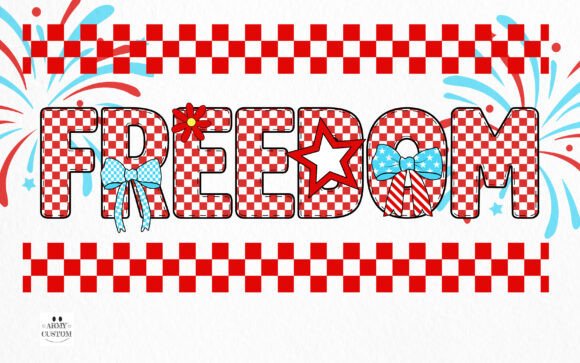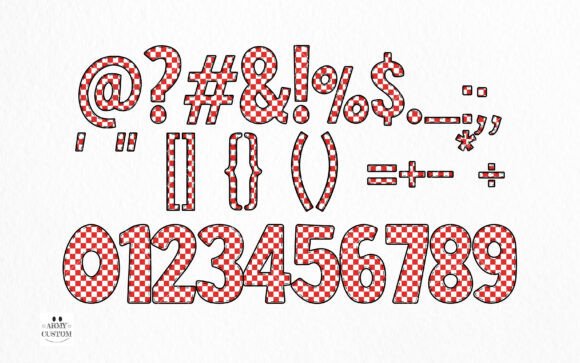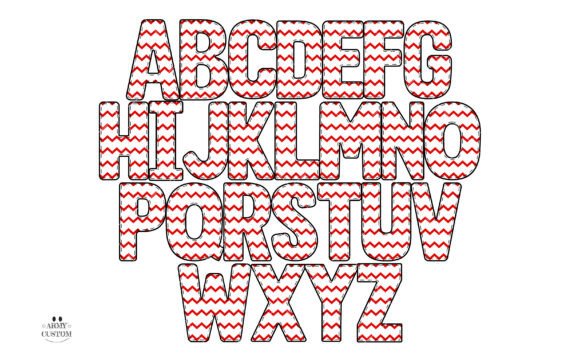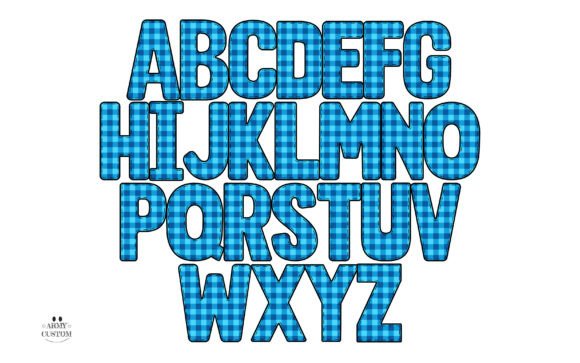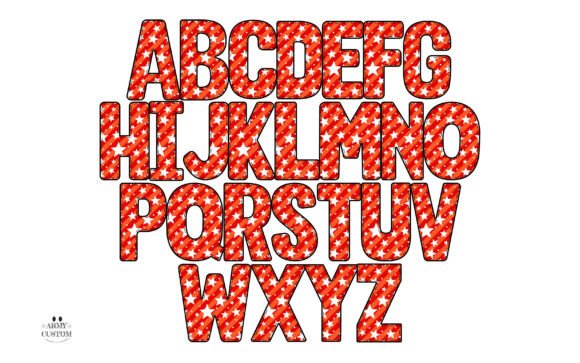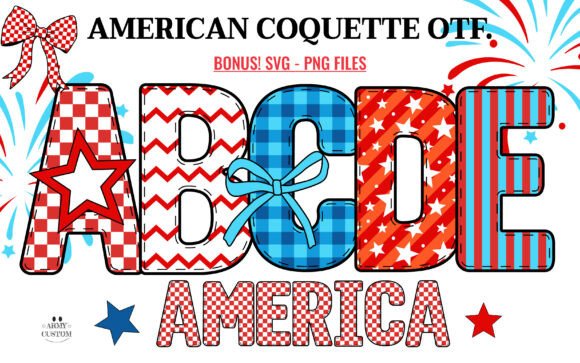
Introducing the American Coquette Font: A Patriotic Celebration in Typography
Immerse yourself in the spirit of patriotic celebrations with the American Coquette Font, a unique and captivating typeface that embodies the essence of Memorial Day and American aesthetics. This font is not just a collection of letters; it’s a tribute to the Land of the Free, brought to life through typography. In this article, we’ll explore the features, benefits, and uses of the American Coquette Font, perfect for designers and crafters looking to infuse their projects with a touch of patriotism.
The Essence of American Aesthetics
The American Coquette Font is a true representation of American charm and spirit, uniquely designed to capture the heart of the United States. Every curve and line of this font is carefully crafted to reflect the country’s rich history and cultural heritage. Whether you’re working on a project for Memorial Day, Independence Day, or any other patriotic celebration, this font is sure to add a touch of authenticity and flair.
Key Features of the American Coquette Font
- Unique Design: The American Coquette Font boasts a distinctive design that sets it apart from other fonts. Its curves and lines are carefully crafted to evoke a sense of patriotism and American charm.
- Patriotic Spirit: This font is not just a collection of letters; it’s a tribute to the United States and its people. It’s perfect for designers and crafters who want to infuse their projects with a touch of patriotism.
Creative Projects with the American Coquette Font
The American Coquette Font is perfect for a wide range of creative projects, from DIY crafts to professional design work. Here are some ideas to get you started:
- Patriotic Signs: Create eye-catching signs for Memorial Day, Independence Day, or other patriotic celebrations.
- Custom Vinyl Decals: Design custom vinyl decals for cars, laptops, or water bottles with a touch of American charm.
- Party Invitations: Design patriotic party invitations, complete with custom illustrations and typography.
- Social Media Graphics: Create engaging social media graphics that showcase your patriotism and style.
The American Coquette Font is a unique and captivating typeface that embodies the spirit of patriotism and American aesthetics. With its distinctive design, compatibility with various design programs and cutting machines, and versatility in use, this font is perfect for designers and crafters looking to infuse their projects with a touch of patriotism. Download the American Coquette Font today and start creating stunning, patriotic projects that showcase your creativity and love for the United States.